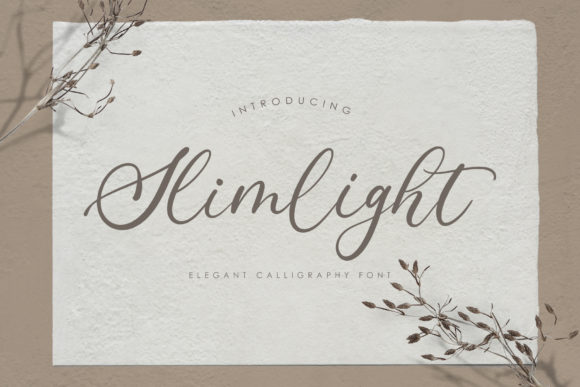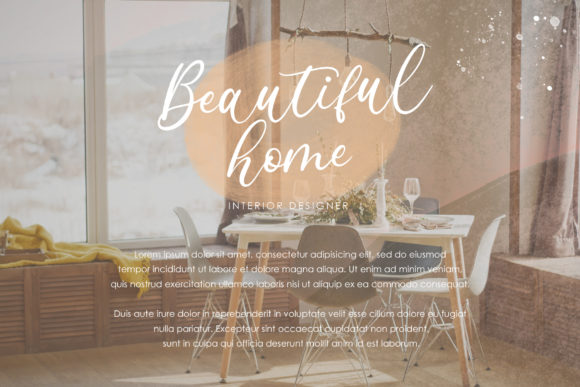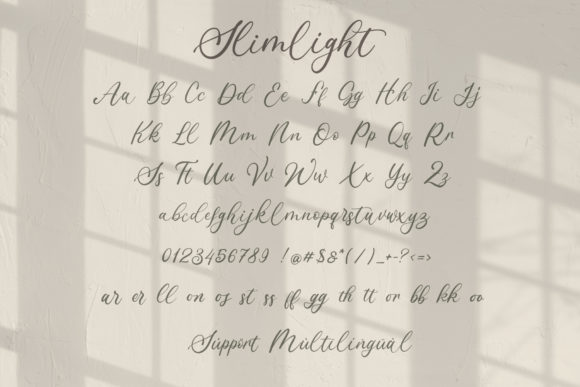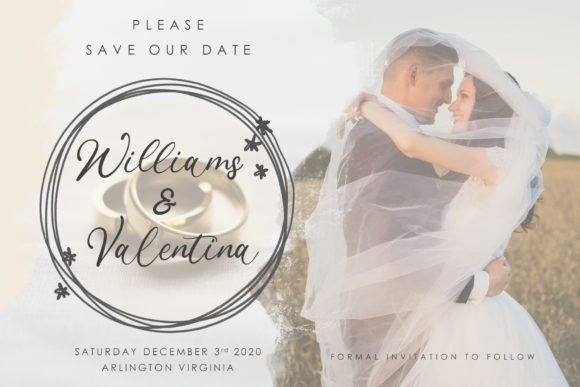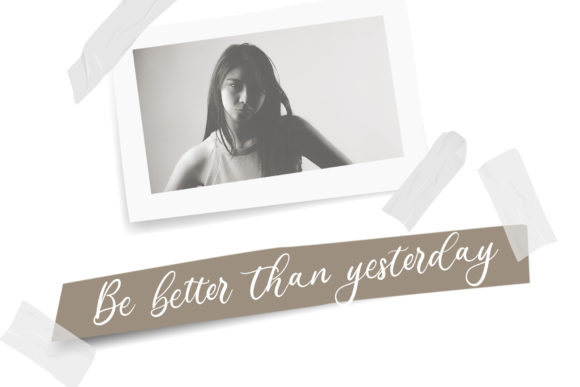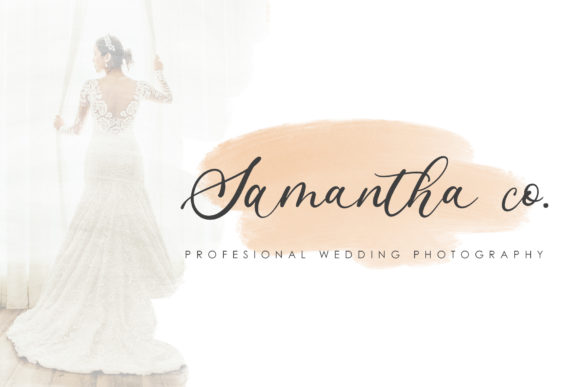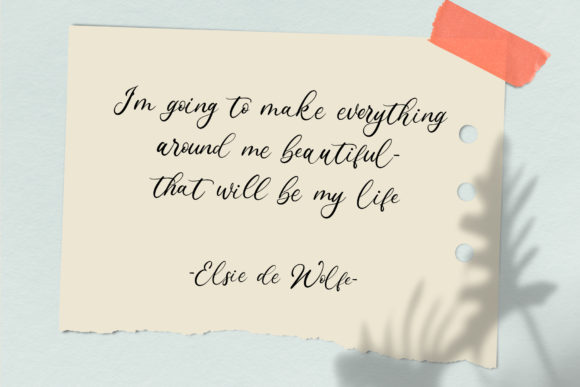
Slimlight Font
About Slimlight Font
Slimlight is a casual and smooth handwritten font. It has a beauty feel that will turn any crafting idea into a true standout.